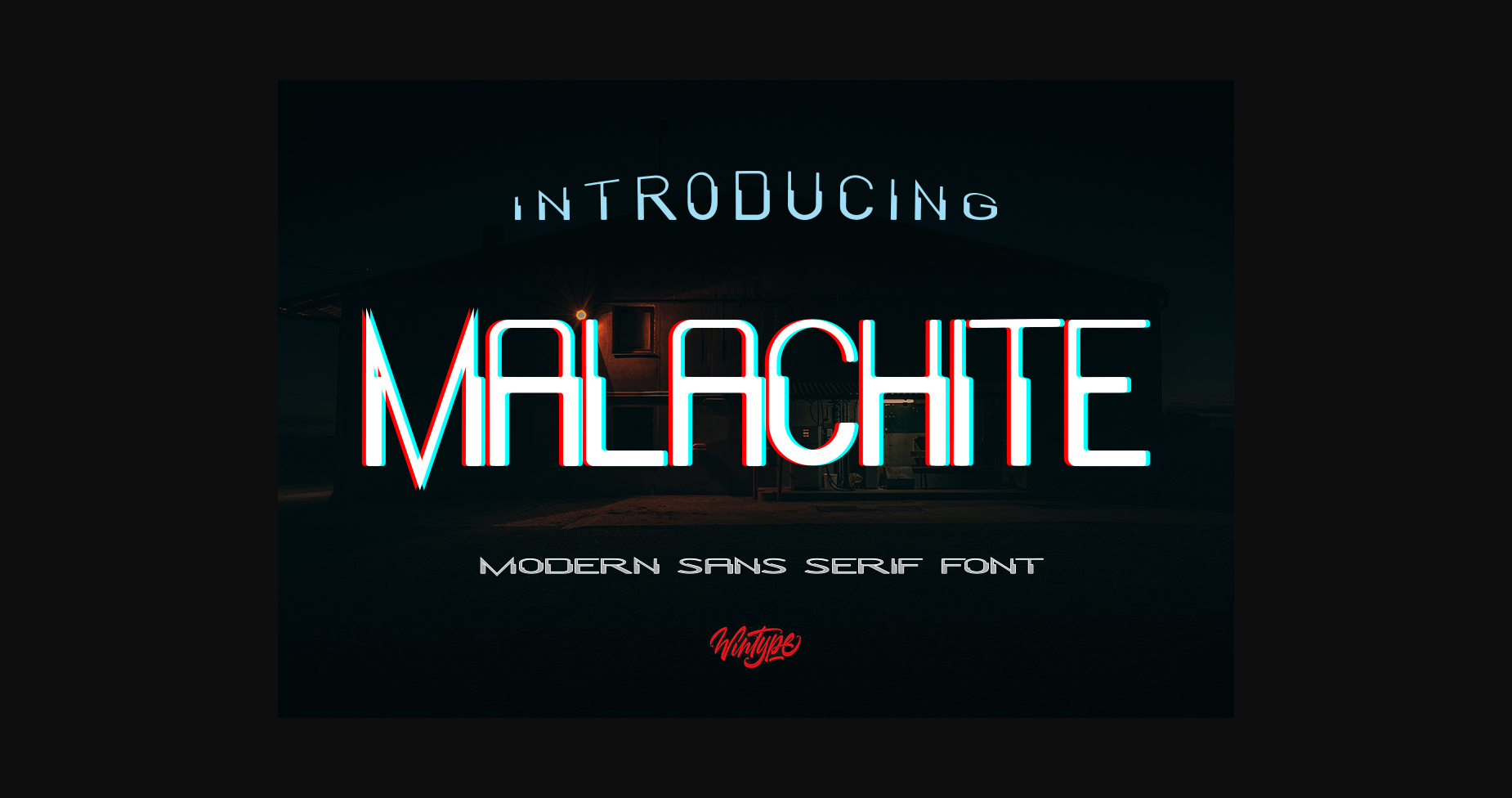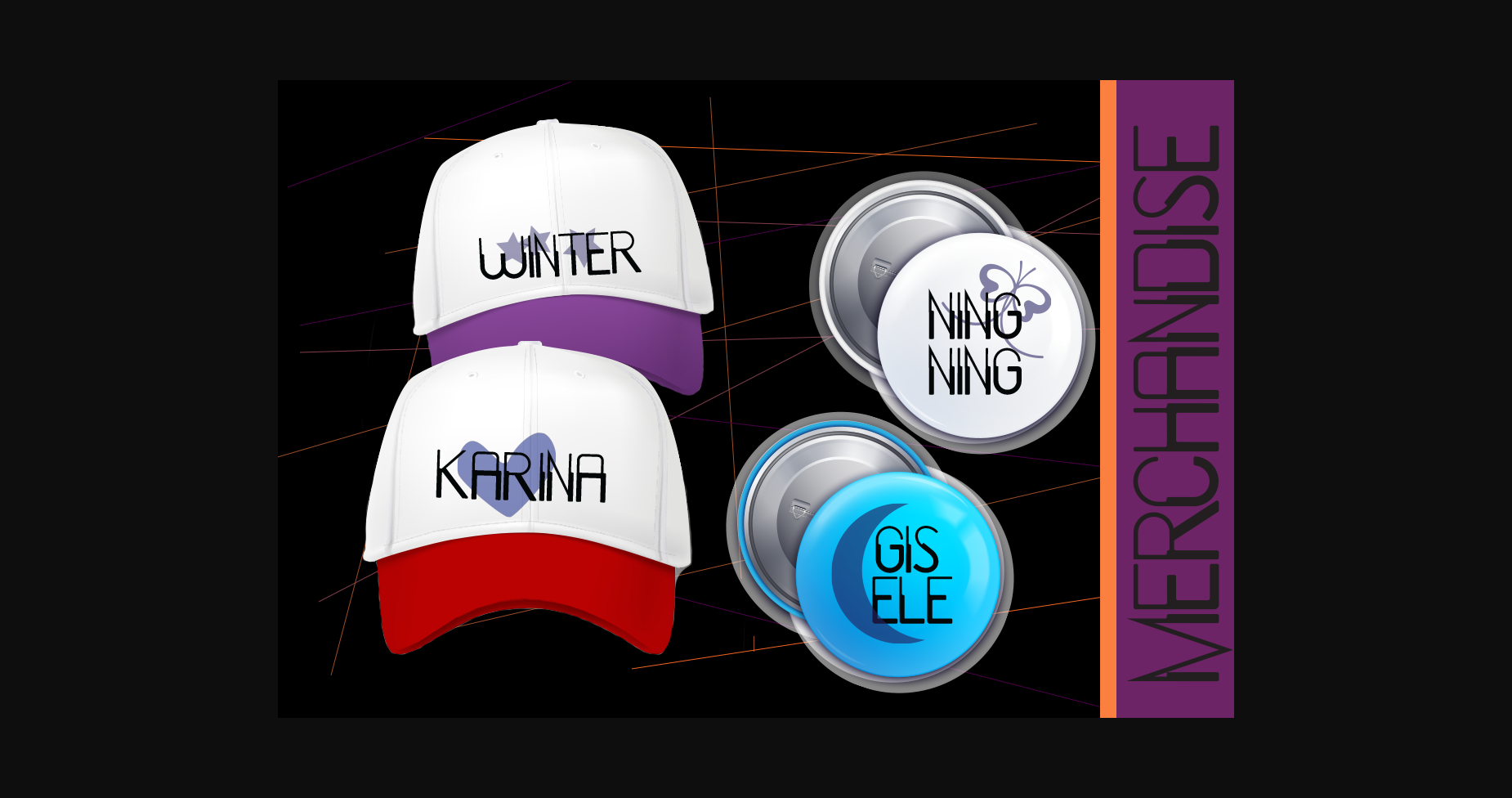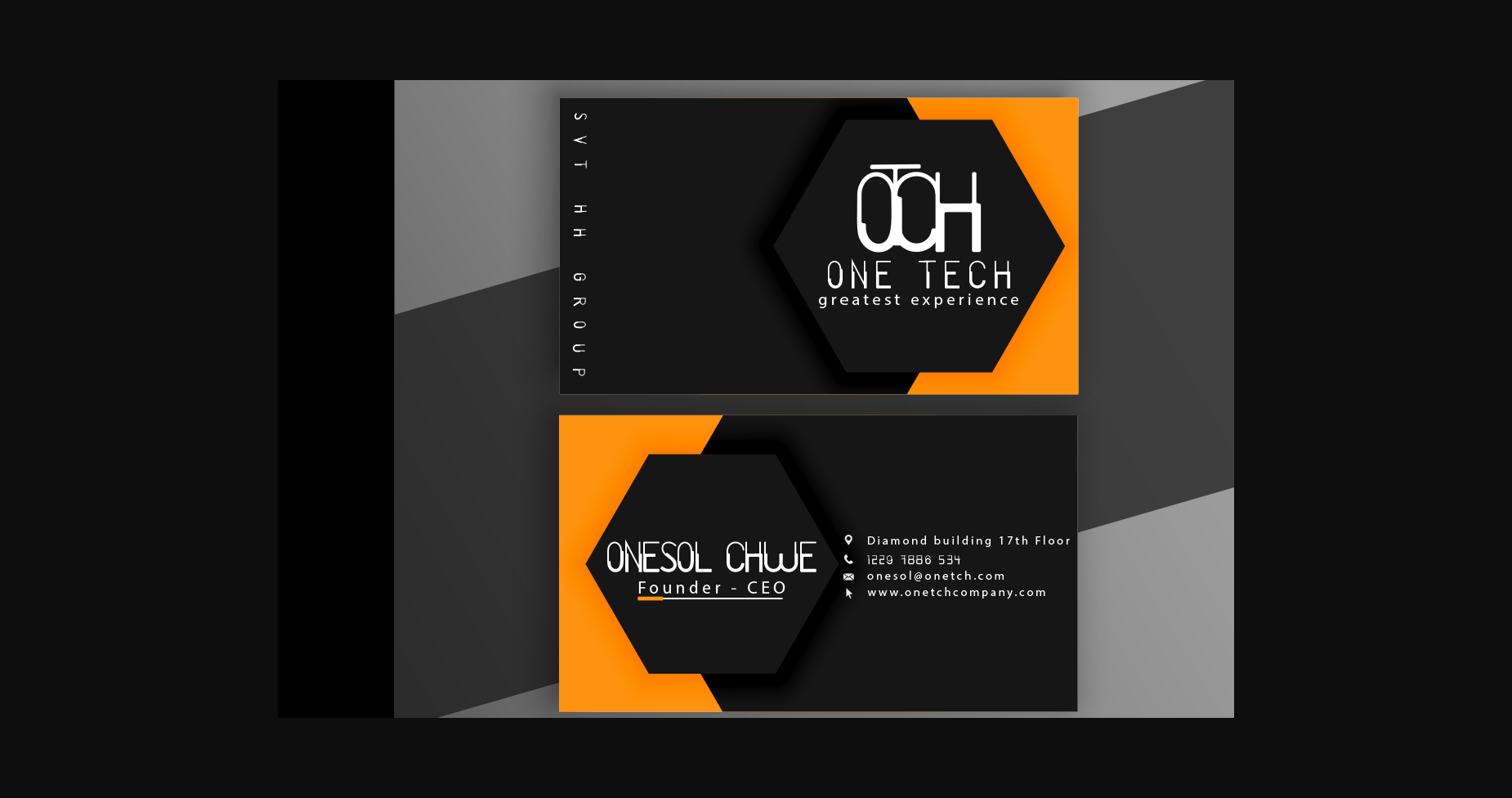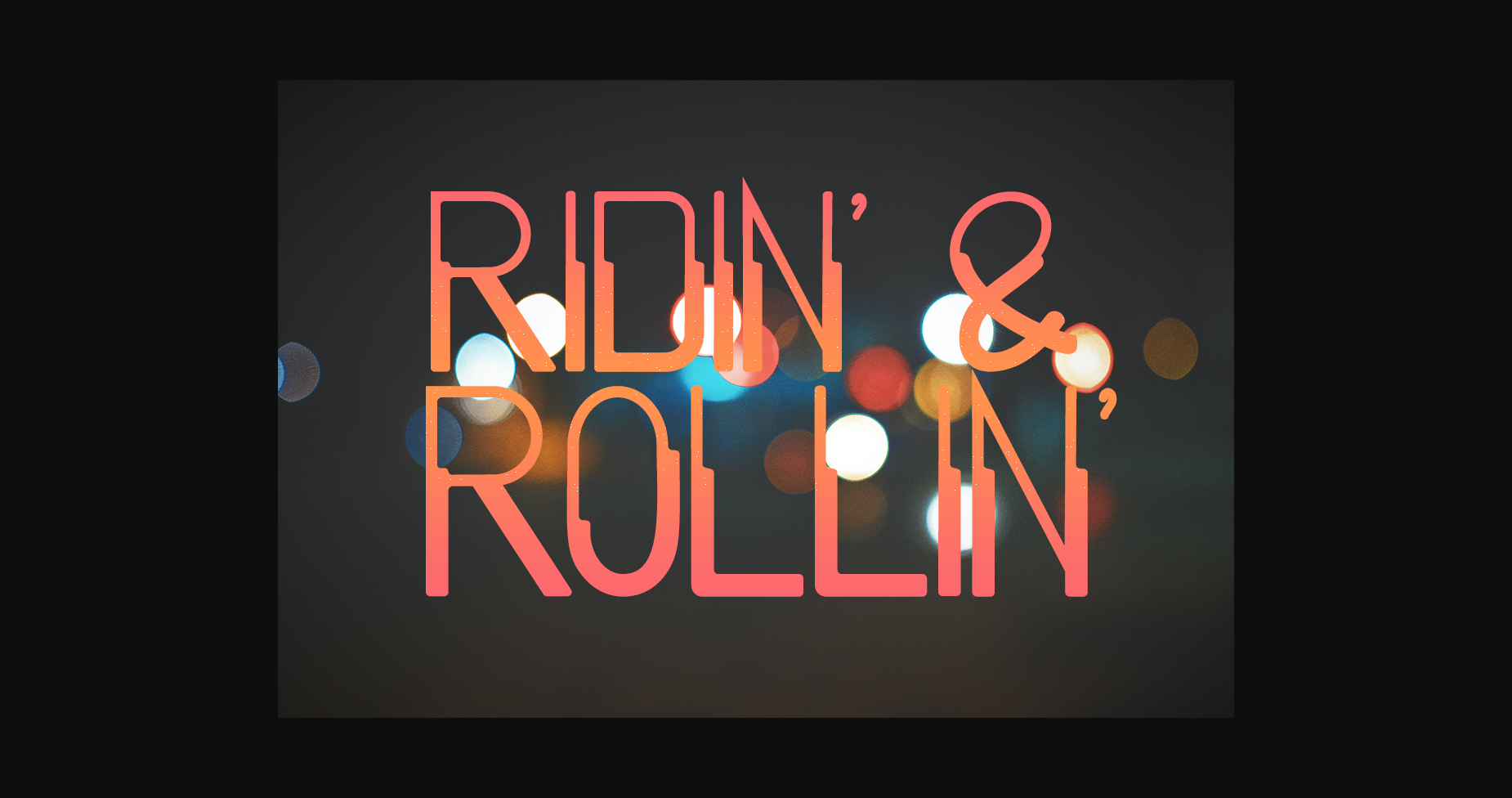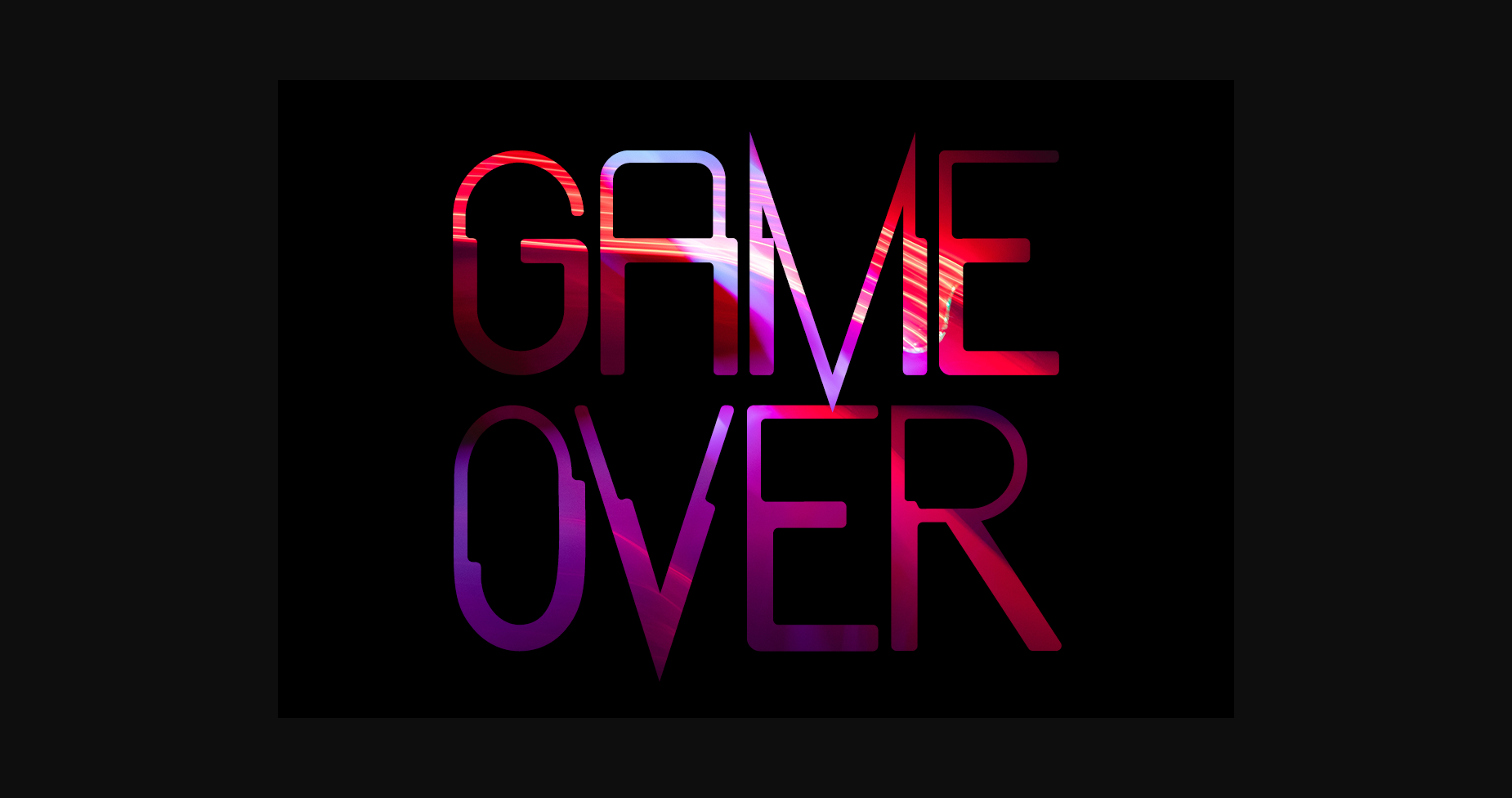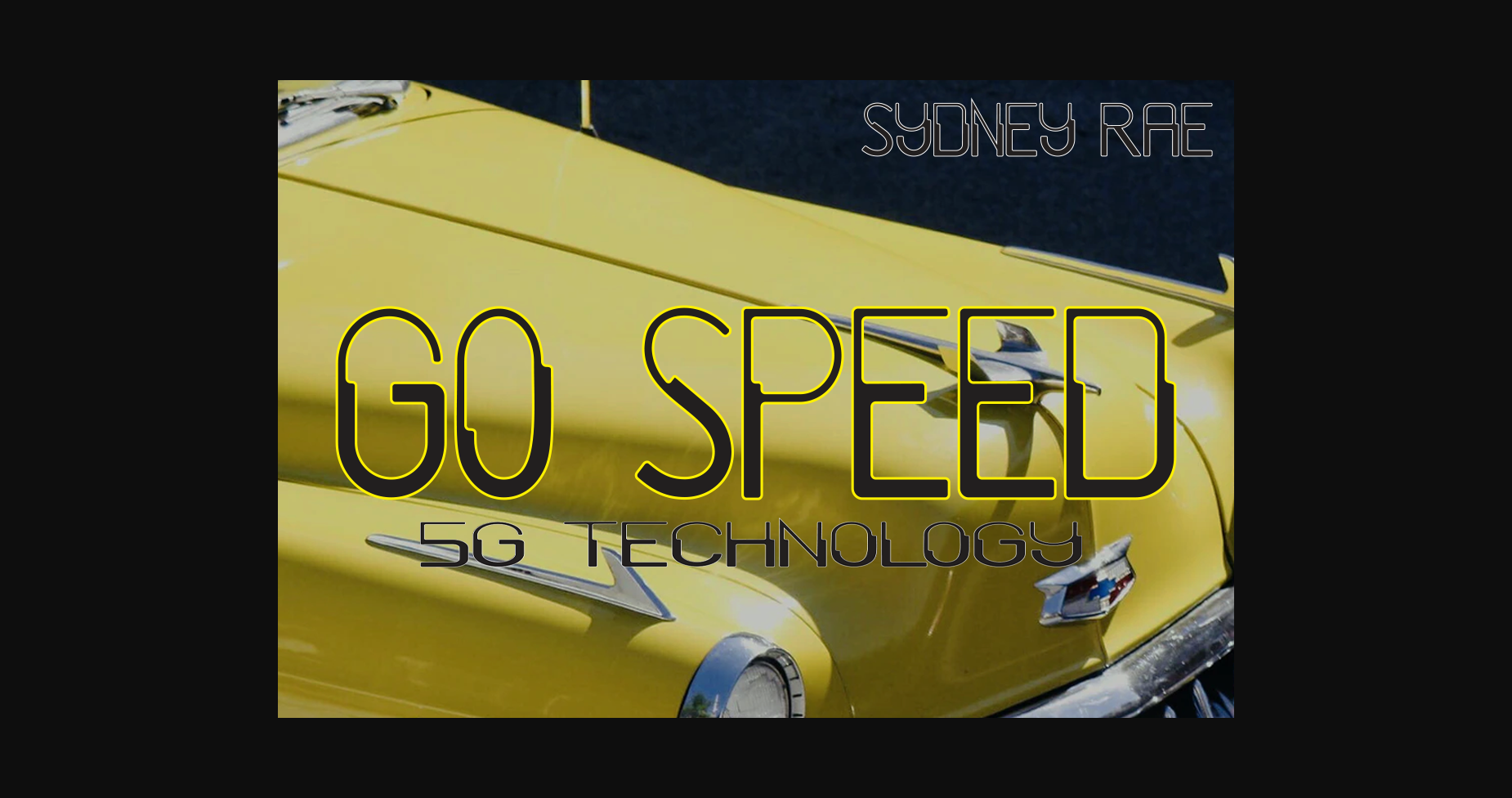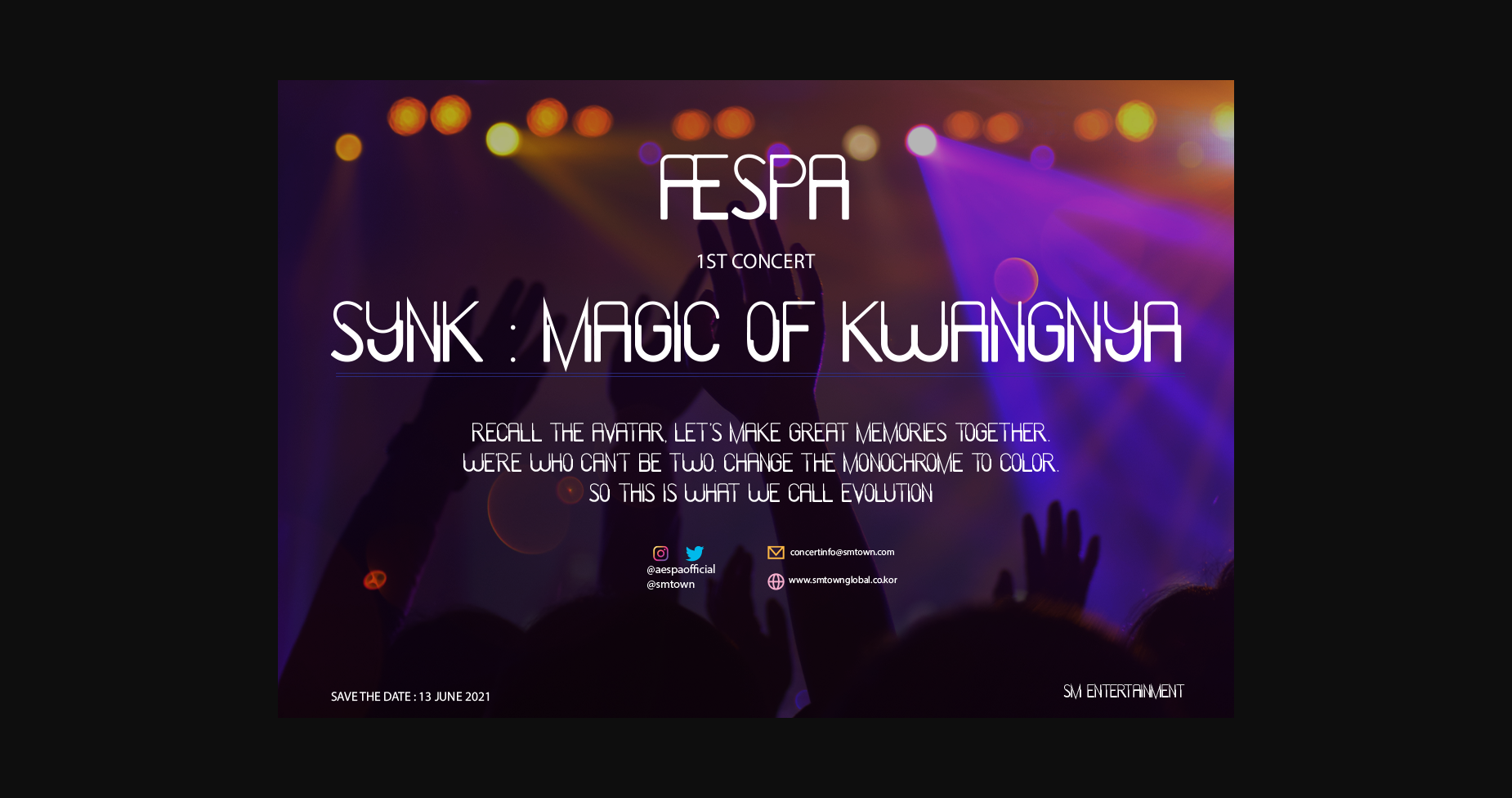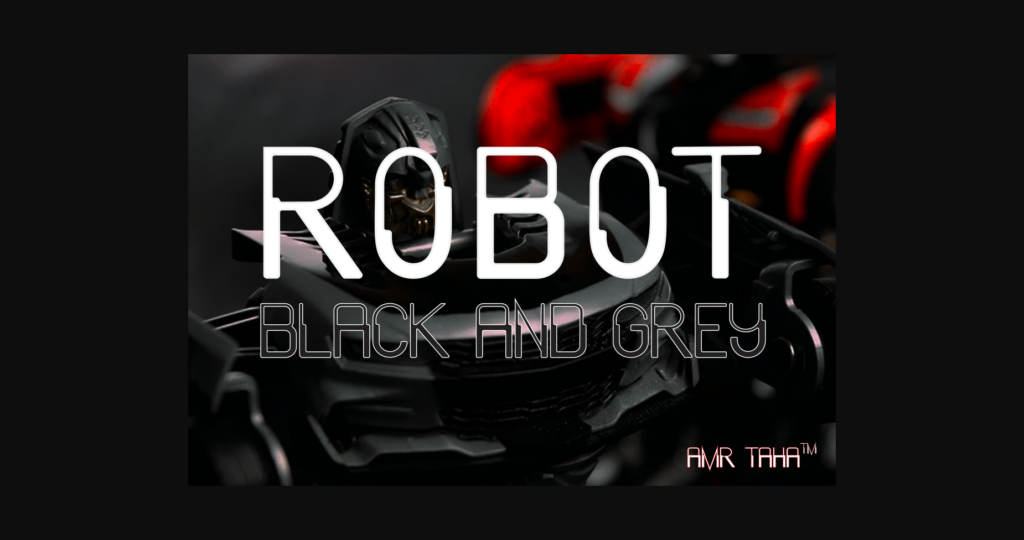
Malachite Font
About Malachite Font
Malachite is a modern sans serif font that dares to be different. It has a classy and cool look that can be used for covers, logos, branding, carts, games, designs, merchandise, social media posts, and so much more!